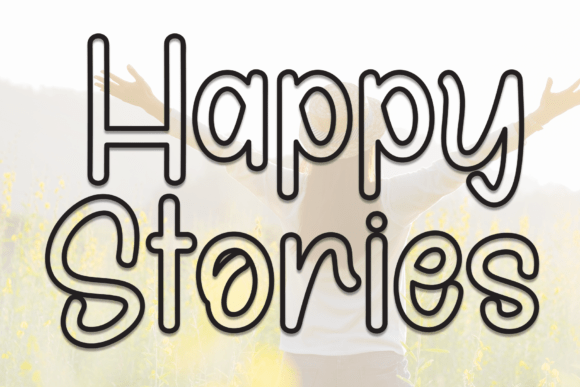
Introducing Happy Stories Font: The Perfect Blend of Warmth and Clarity
In the world of typography, fonts play a crucial role in conveying the tone and personality of a brand or message. Among the numerous fonts available, Happy Stories Font stands out as a casual and neat display font designed to bring warmth and clarity to your projects. With its clean structure and approachable style, it suits branding, headlines, and everyday designs, making it an excellent choice for designers and marketers alike.
What Makes Happy Stories Font Unique?
Happy Stories Font boasts a unique blend of characteristics that set it apart from other fonts. Its balanced letterforms offer readability and charm, making every message feel genuine and inviting. The font’s clean structure and approachable style ensure that it can be used in a variety of contexts, from branding and advertising to digital and print media.
One of the standout features of Happy Stories Font is its ability to convey warmth and friendliness. The font’s design is carefully crafted to create a sense of approachability, making it perfect for brands that want to establish a strong emotional connection with their audience. Whether you’re designing a logo, creating a social media post, or developing a website, Happy Stories Font is an excellent choice.
The Benefits of Using Happy Stories Font
There are several benefits to using Happy Stories Font in your design projects. Some of the most significant advantages include:
- Improved Readability: Happy Stories Font is designed to be highly readable, making it perfect for use in body text, headlines, and titles.
- Enhanced Brand Personality: The font’s warm and approachable style helps to create a strong emotional connection with your audience, making it ideal for branding and marketing applications.
- Versatility: Happy Stories Font can be used in a wide range of design projects, from digital media to print materials.
How to Use Happy Stories Font in Your Design Projects
Using Happy Stories Font in your design projects is easy. Here are a few tips to get you started:
- Pair it with Other Fonts: Happy Stories Font works well when paired with other fonts. Try combining it with a sans-serif font for a modern look or a serif font for a more traditional feel.
- Use it for Headlines and Titles: The font’s bold and playful style makes it perfect for use in headlines and titles.
- Experiment with Colors: Happy Stories Font looks great in a variety of colors. Try experimenting with different colors to find the perfect combination for your design project.
Who Can Benefit from Using Happy Stories Font?
Happy Stories Font is an excellent choice for a wide range of designers, marketers, and businesses. Some of the most likely candidates include:
- Graphic Designers: Happy Stories Font is a great addition to any graphic designer’s toolkit. Its versatility and ease of use make it perfect for a wide range of design projects.
- Marketers and Advertisers: The font’s warm and approachable style makes it ideal for marketing and advertising applications.
- Small Business Owners: Happy Stories Font is a great choice for small business owners who want to create a strong brand identity without breaking the bank.
- Web Designers and Developers: The font’s clean structure and readability make it perfect for use in web design and development projects.
The Psychology of Happy Stories Font
Fonts can have a significant impact on how we perceive a message or brand. Happy Stories Font is designed to evoke feelings of warmth, friendliness, and approachability. The font’s clean structure and balanced letterforms create a sense of stability and trustworthiness, making it perfect for brands that want to establish a strong emotional connection with their audience.
The psychology of Happy Stories Font is rooted in its design. The font’s rounded edges and open letterforms create a sense of warmth and inclusiveness, making it perfect for brands that want to convey a sense of friendliness and approachability. The font’s bold and playful style also makes it attention-grabbing and engaging, making it perfect for use in headlines and titles.
In conclusion, Happy Stories Font is a casual and neat display font designed to bring warmth and clarity to your projects. With its clean structure and approachable style, it suits branding, headlines, and everyday designs, making it an excellent choice for designers and marketers alike. Its balanced letterforms offer readability and charm, making every message feel genuine and inviting.
Whether you’re a graphic designer, marketer, or small business owner, Happy Stories Font is an excellent addition to your toolkit. Its versatility, ease of use, and warm and approachable style make it perfect for a wide range of design projects. So why not give it a try and see how it can help take your designs to the next level?
- What is Happy Stories Font used for? Happy Stories Font is perfect for use in branding, headlines, and everyday designs.
- Is Happy Stories Font easy to read? Yes, Happy Stories Font is designed to be highly readable, making it perfect for use in body text, headlines, and titles.